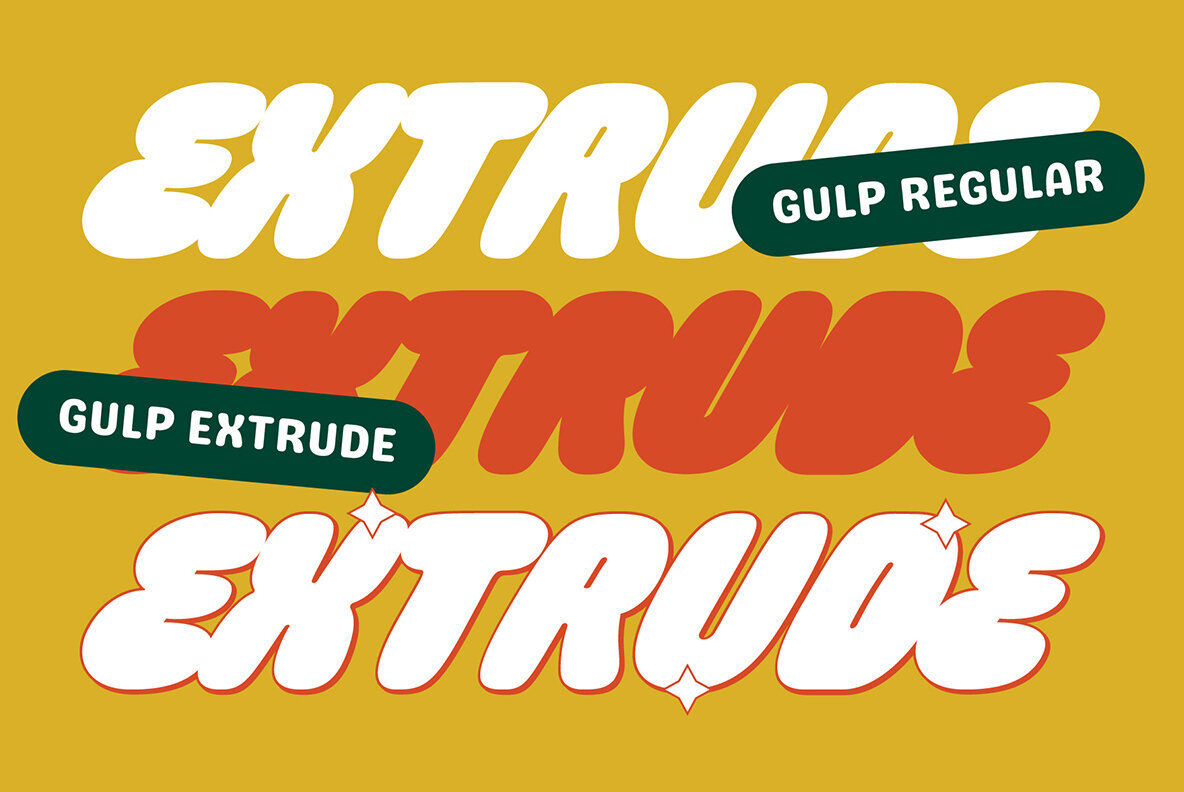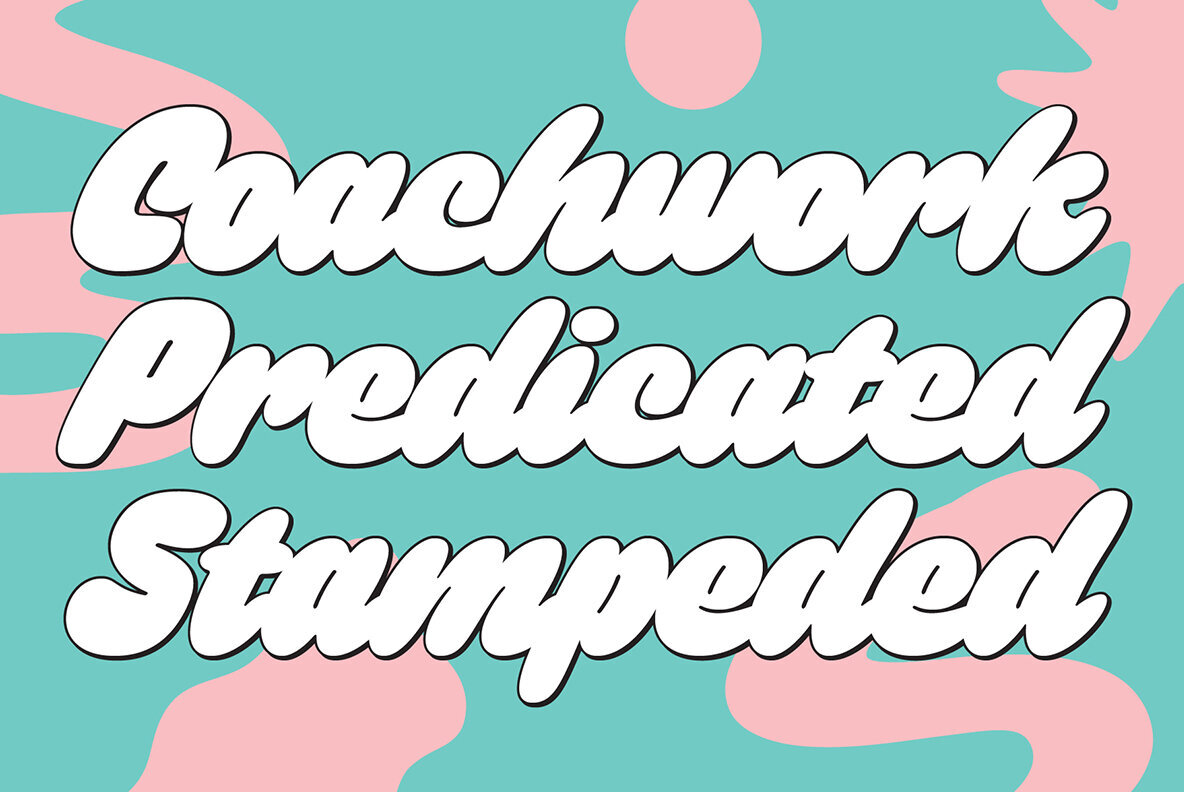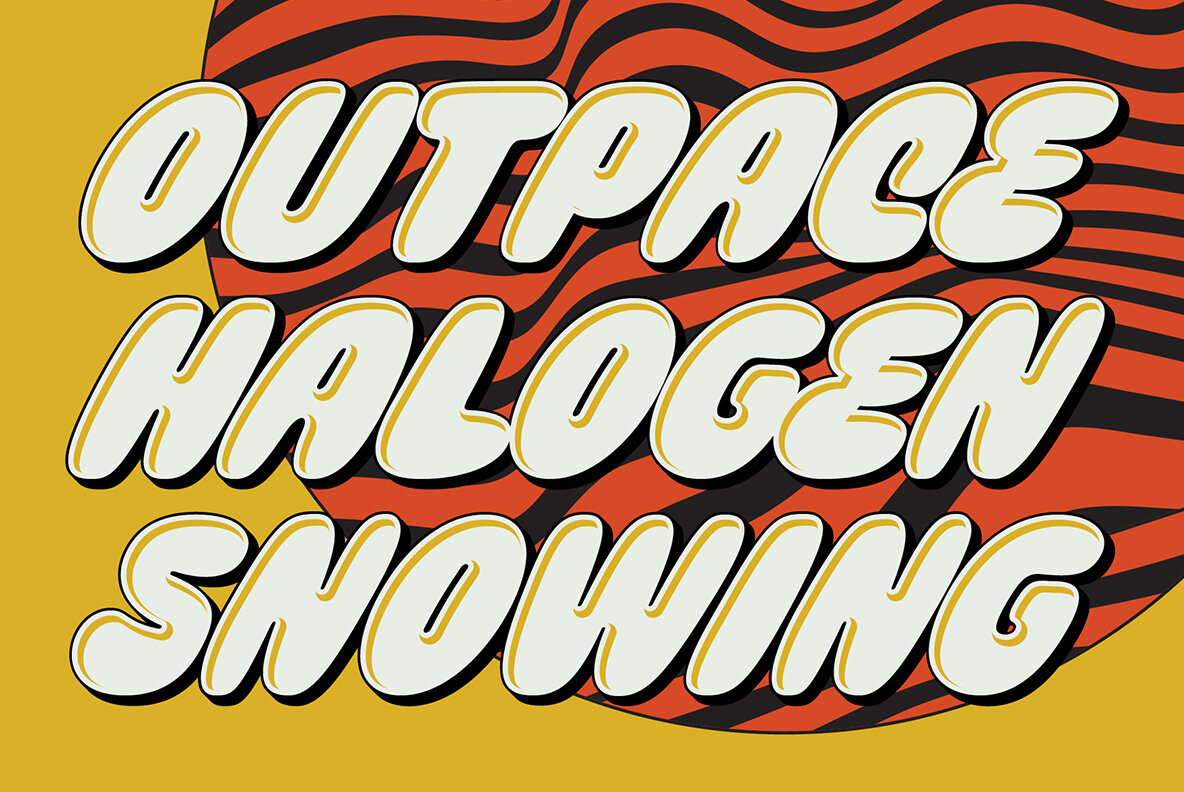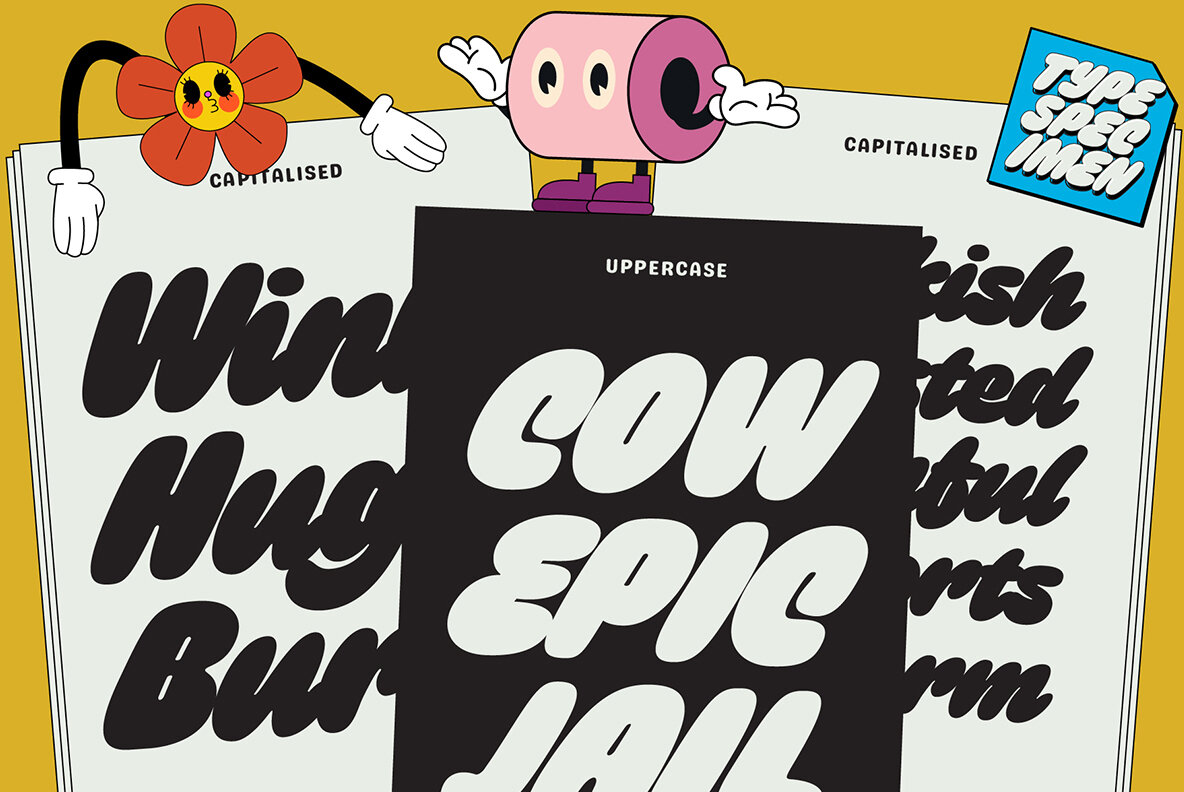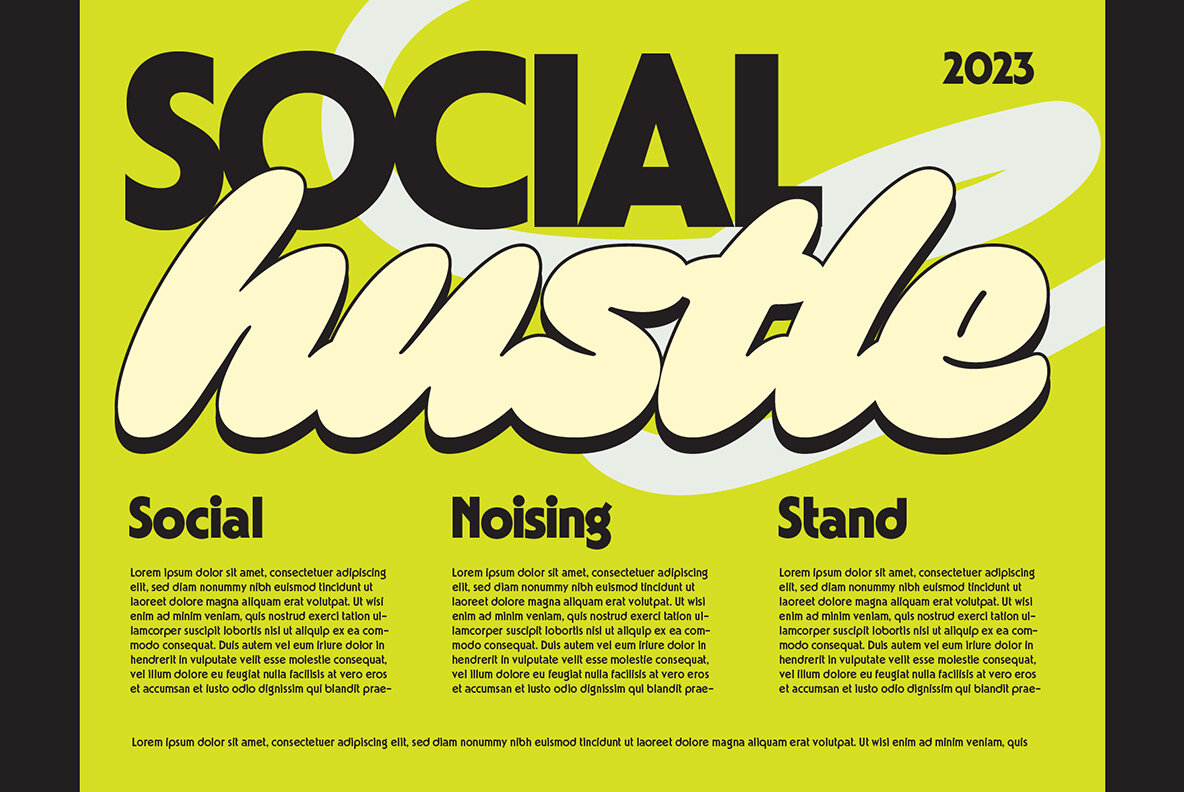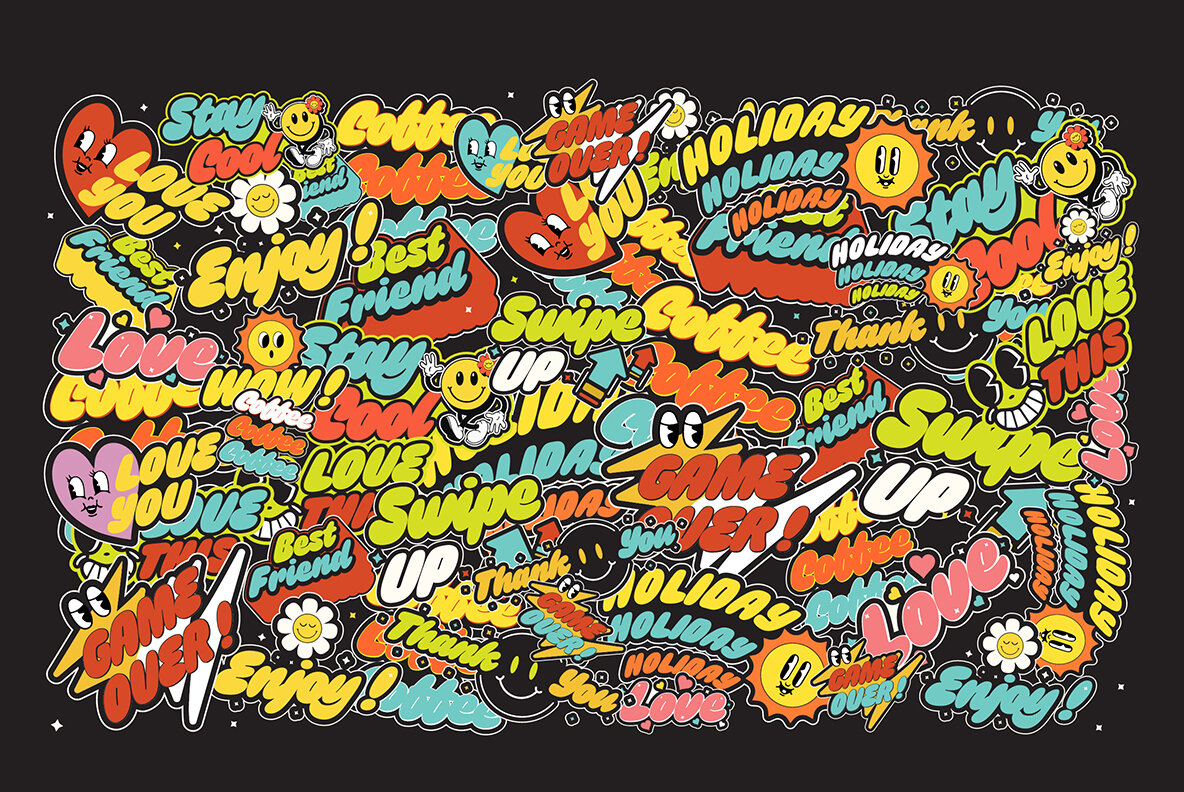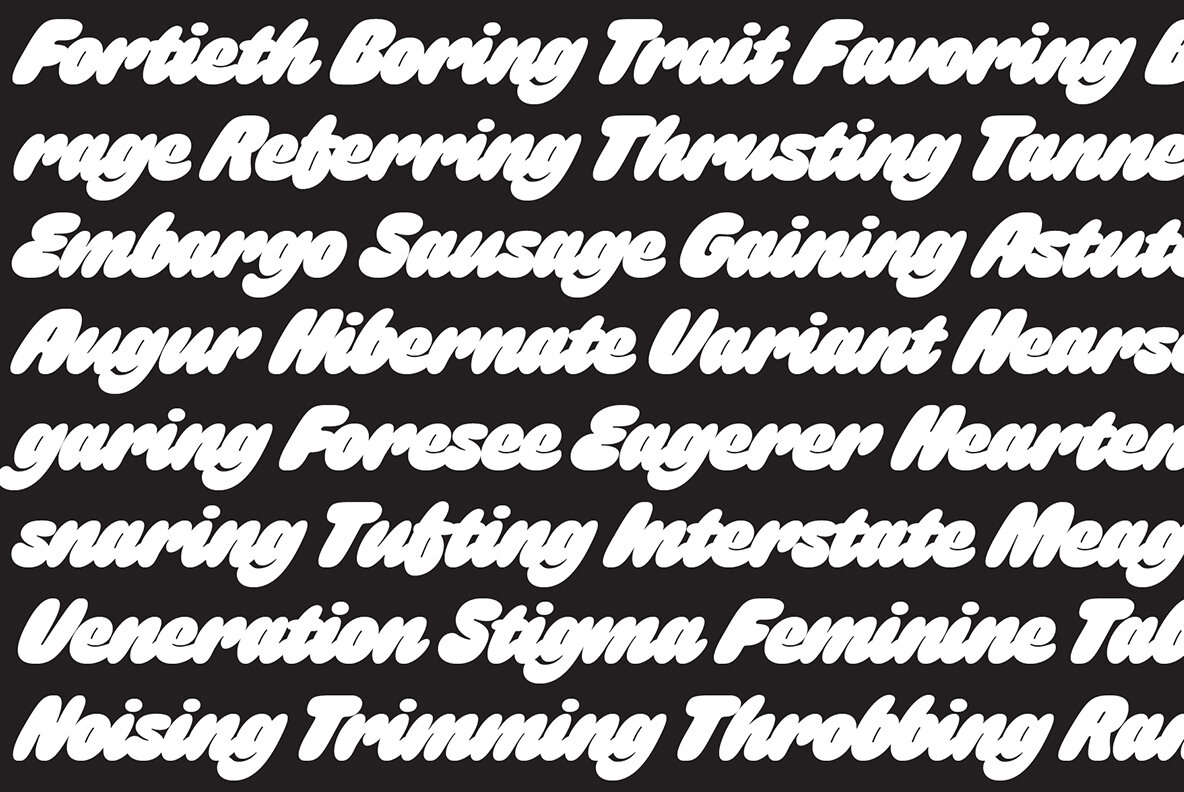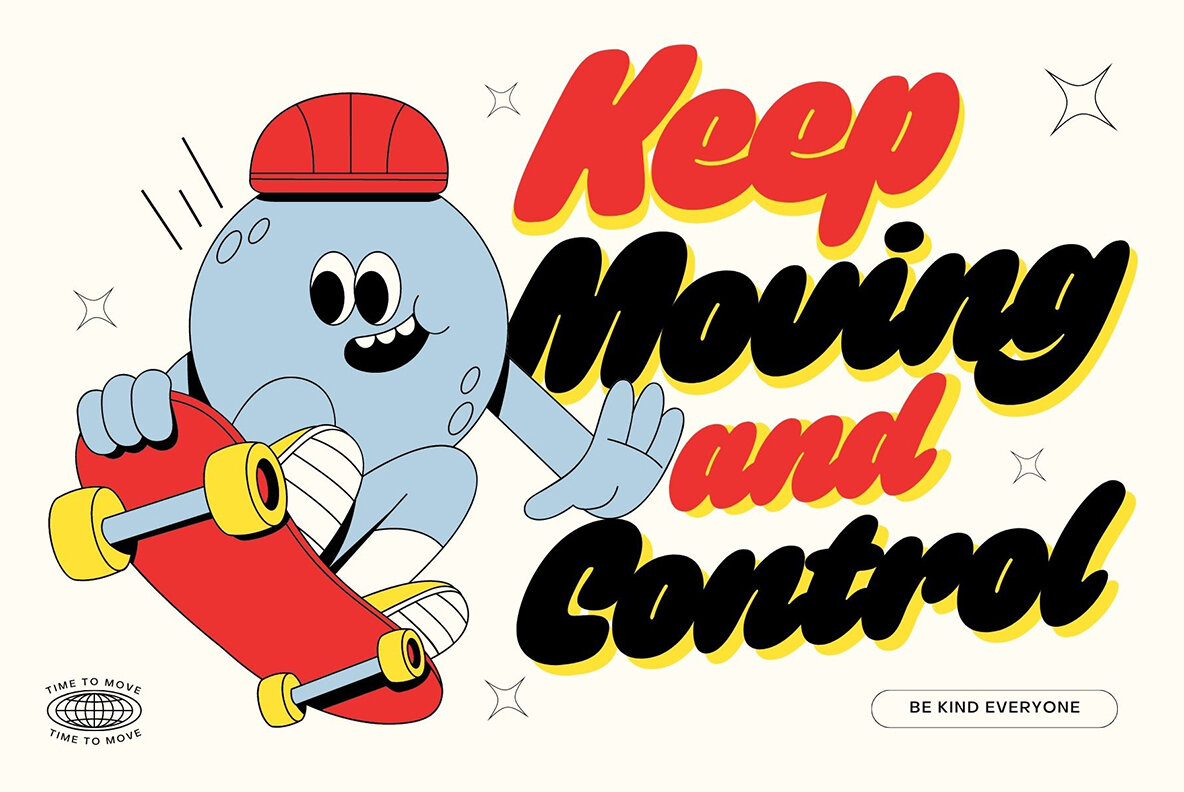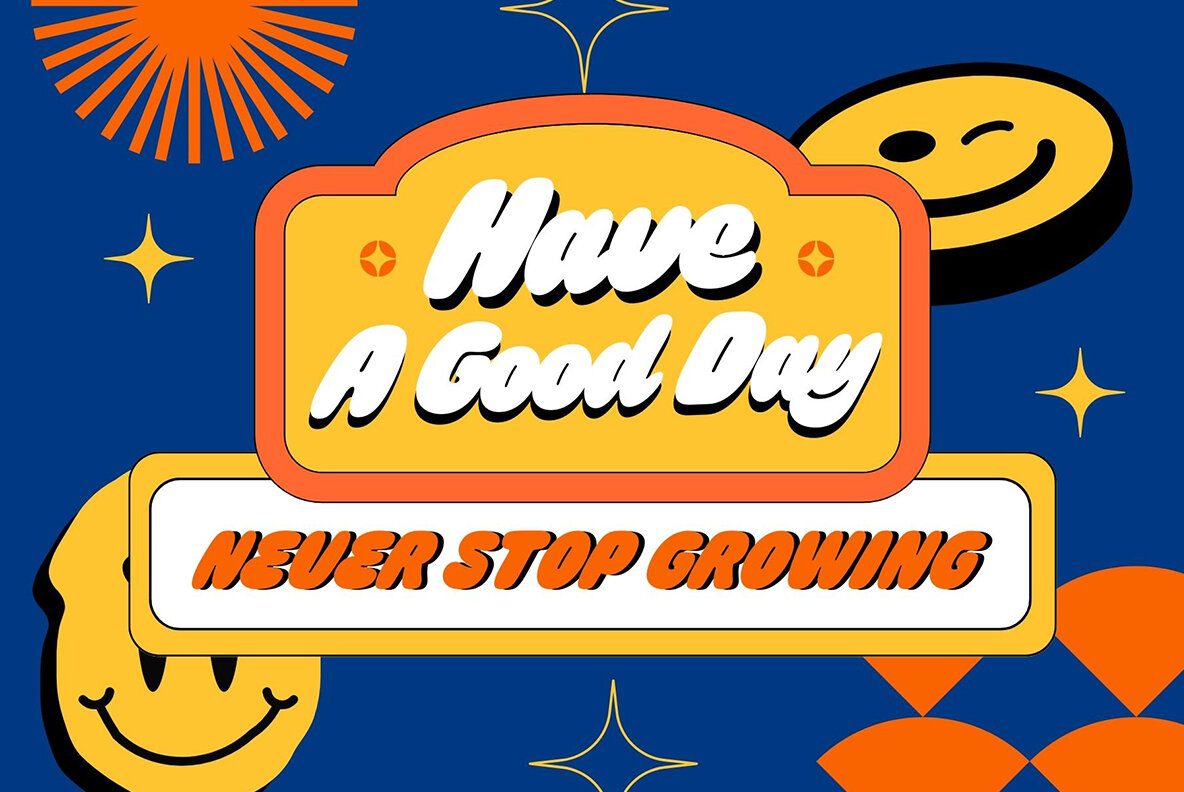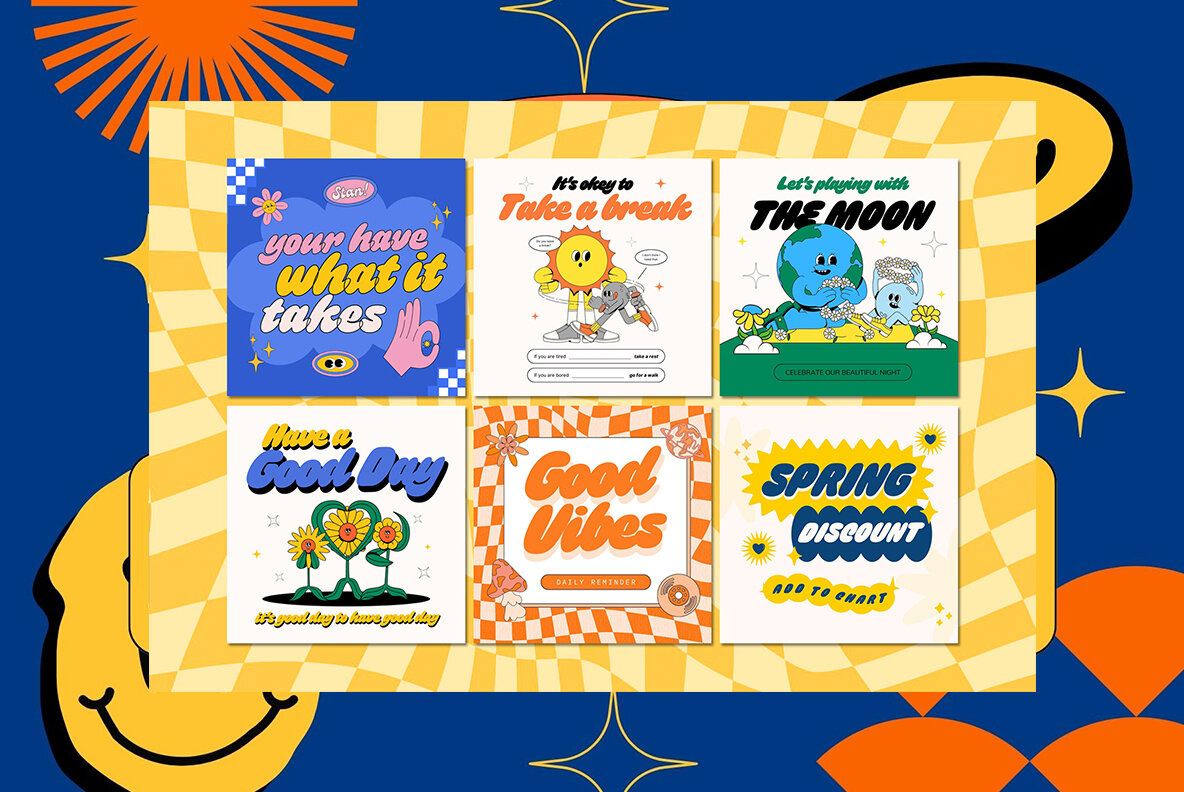
Gulp Font
Give your designs a bold and unique edge with Flavor Type's Gulp Font! Fun, playful, and retro inspired by pop art, hippie and comic book styles, this font offers an ultra-bold and fat appearance that makes it perfect for eye-catching headers and short word texts. With its modernity and fanciness, plus a touch of uniqueness from the Italic style, Gulp is sure to make your designs stand out.